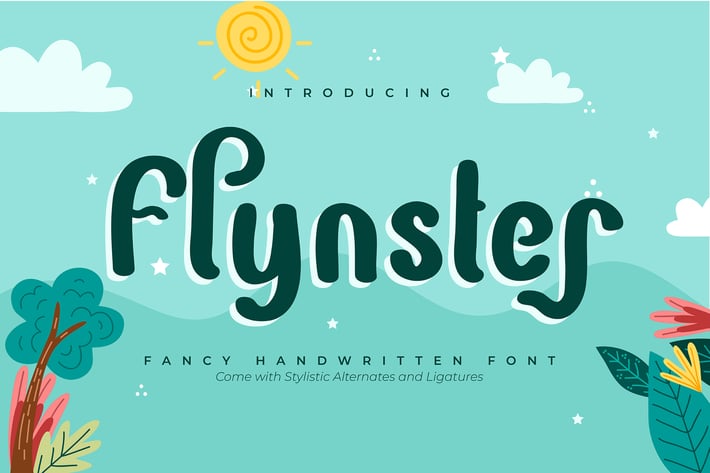
Flynster | Fancy Handwritten Font
Flynster | Fancy Handwritten Font with a calligraphy style, So beautiful on invitation like greeting cards, branding materials, business cards, quotes, posters, and more!